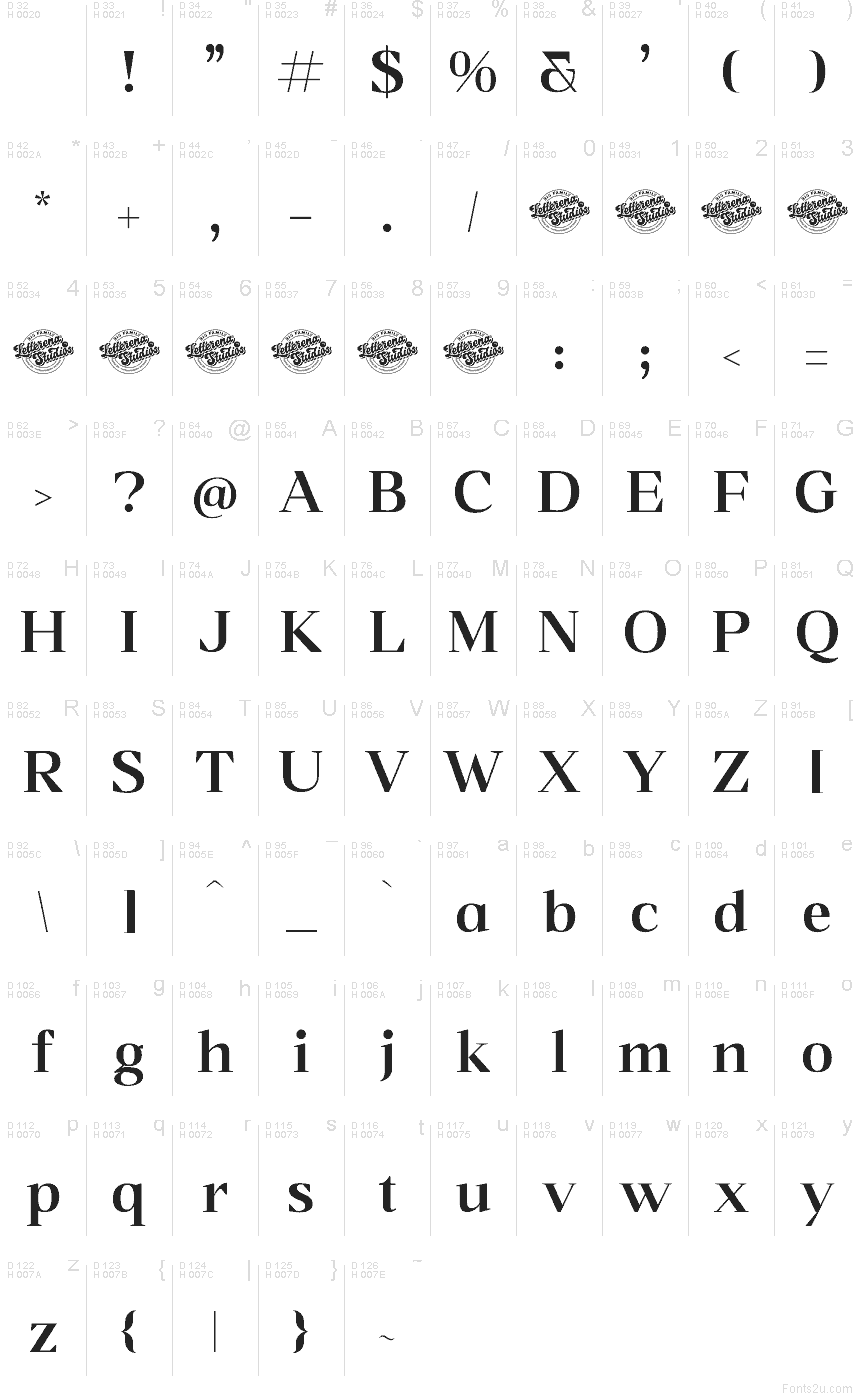
Gridova DEMO VERSION
Gridova font by Letterena Studios is a free serif typeface that balances sharp drama with polished elegance. Its tall, poised letters carry inky thick strokes that taper into fine, blade-like details, giving headlines a confident, editorial snap. The spacing feels measured and intentional, so even bold words read as refined rather than shouty.
Using Gridova, you’ll get a sophisticated voice for fashion branding, book covers, magazine layouts, packaging, logos, and bold website hero text. This free font thrives at larger sizes where its sculpted shapes can really breathe; pair it with a clean geometric sans for body copy to keep layouts both luxurious and readable.